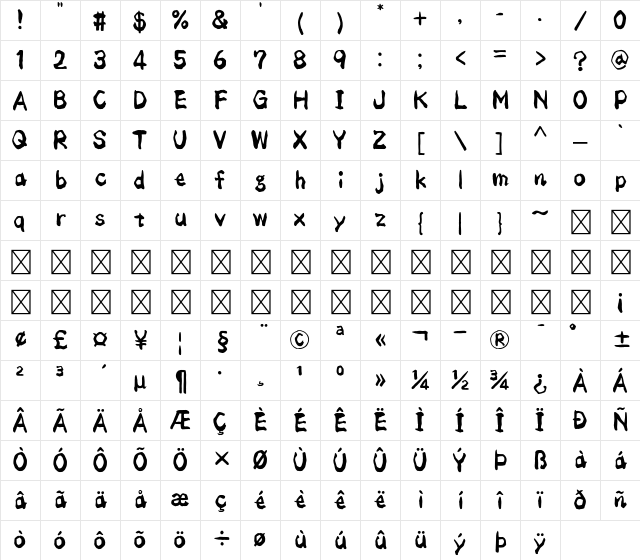
A P-OTF Kokuyou StdN H
Style: H
Design Context for A P-OTF Kokuyou StdN
A P-OTF Kokuyou StdN is a composed and adaptable typeface that performs quietly and consistently across a wide range of design contexts.